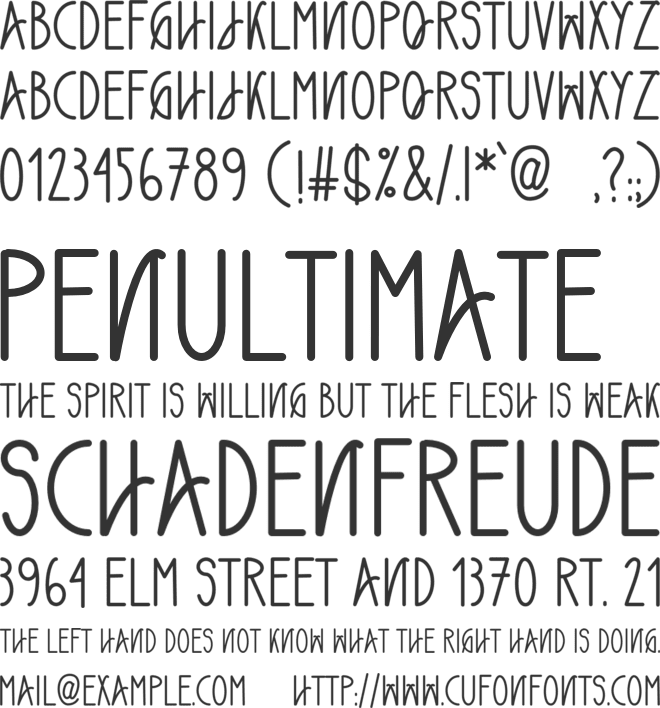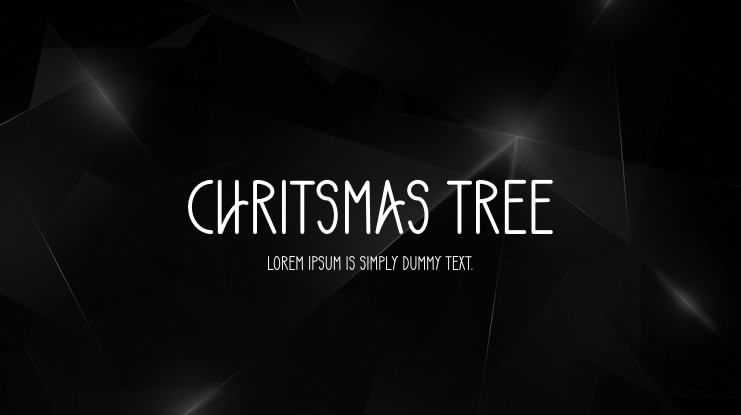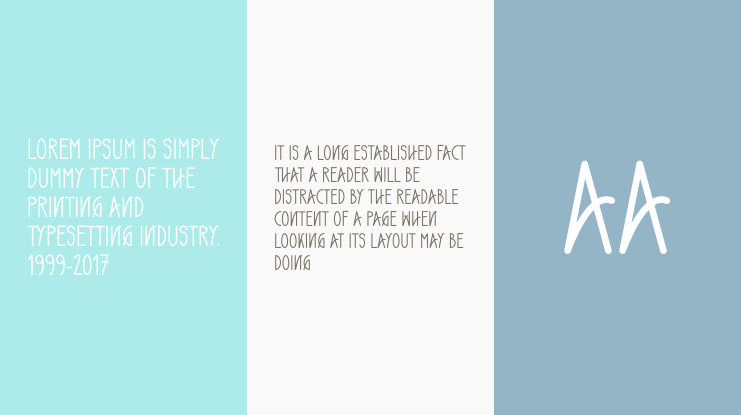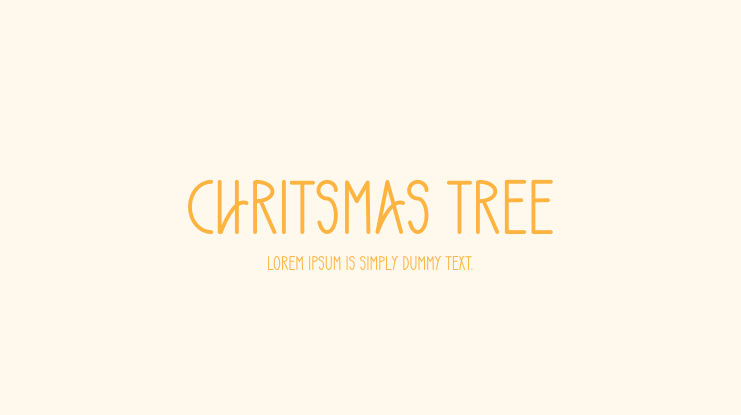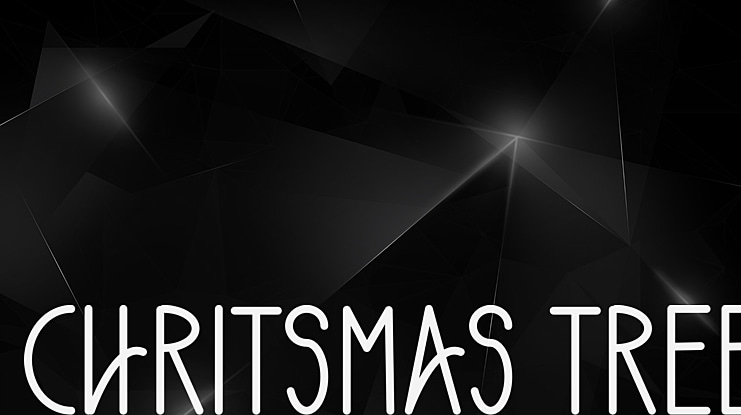
Chritsmas Tree Font
Chrismas Tree is a unique sans serif font. It’s great for logos, tags and so much more! Chrismas Tree was designed to enhance the beauty of your projects.